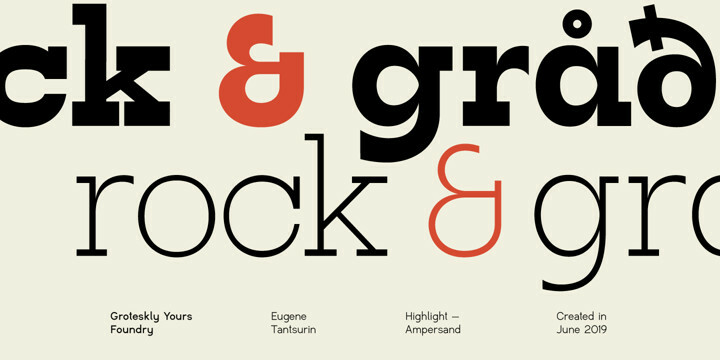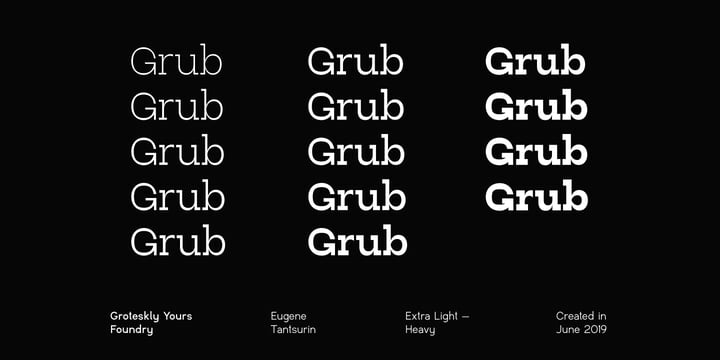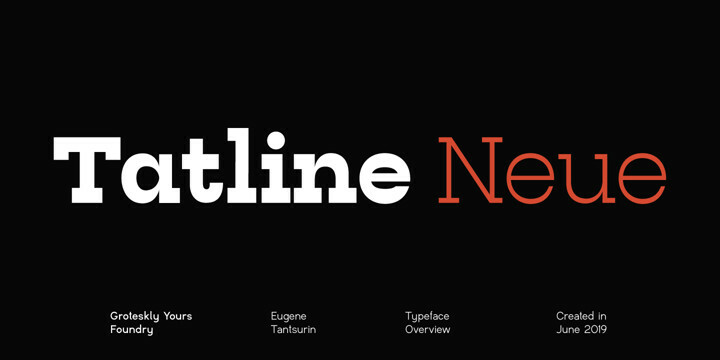
Tatline Neue Font Family
Tatline Neue Font FamilyTatline Neueis a serif font family of 14 fonts encompassing a wide range of weights — from Thin to Heavy. TatlineNeue was modelled after the original Tatline display font, but this major overhaul resulted not only in updated and tweaked shapes and smother curves, but also in addition of 13 new weights, making TatlineNeue a perfect tool for designers and typographers alike. Each font contains 450 glyphs, multiple sets of numbers, stylistic alternatives for certain glyphs, ligatures, numerators, denominators, old style figures, and other symbols. Tatline Neue can be freely used across Western European, Central European, South Eastern European languages. Tatline Neue was designed from the scratch to keep glyphs consistent across all weights. Thinner fonts are more uniform, with little to no variation in the weight of the strokes. Bolder fonts, on the other hands, are chunky and somewhat comic —in a good way. Tatline Neue was born out of a display font, losing none of its original quirkiness and vibe. While serif fonts are often seen as vintage and orthodox, Tatline Neue strikes a livelier note: one of cheekiness, bizarreness, quirkiness, and expressiveness. Thanks to a wide range of weights, Tatline Neue is a great tool for a variety of projects: whether it’s used for plain text in a larger body of text or as a headline font, or even as a key element in a logo creation or brand identity. Tatline Neue is a serif font for those who are tired of seeing the boring in the typography and design; it’s a font for explorers, for adventurers, for those who seek to find their own voice.